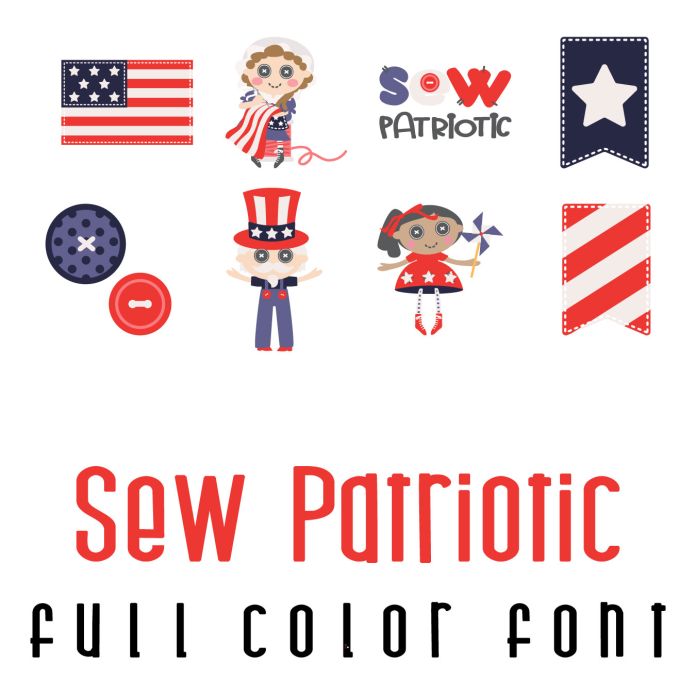
This fun full color font features 26 different patriotic themed images. Perfect for Independence Day, cards, crafts, gifts, decor, scrapbook pages, planner stickers, and more!